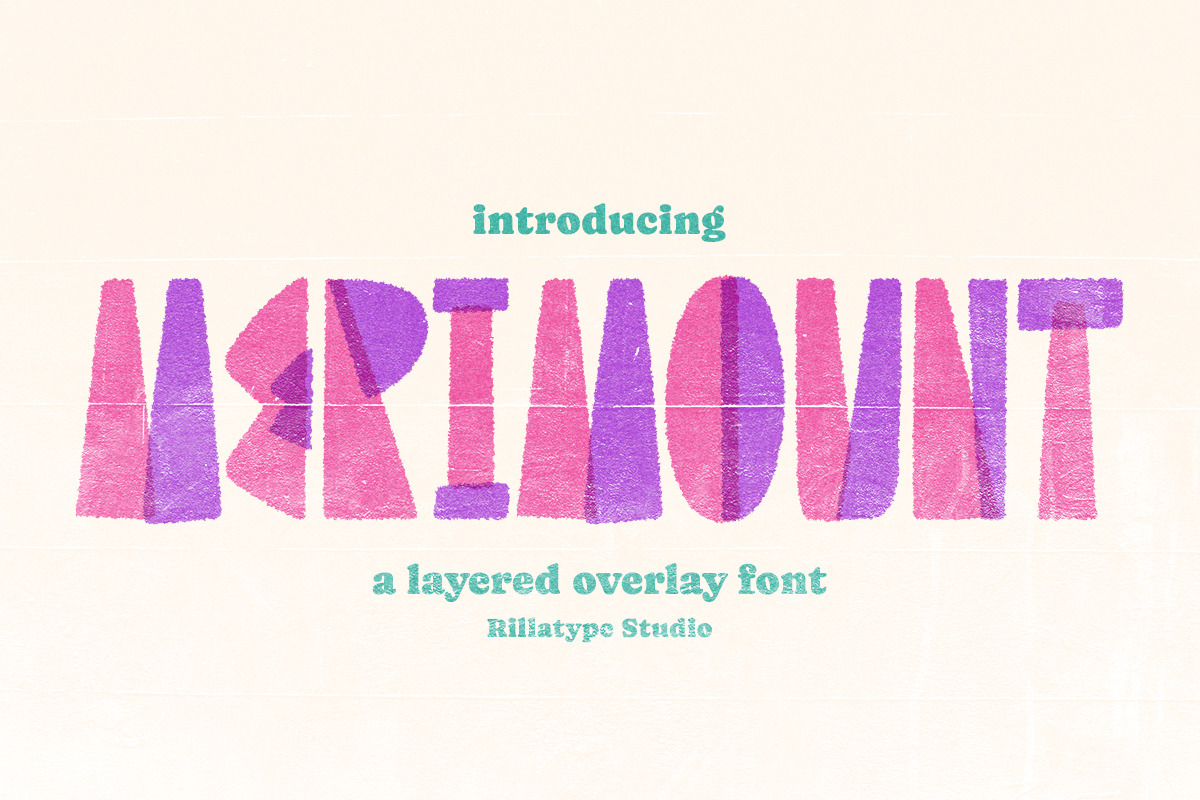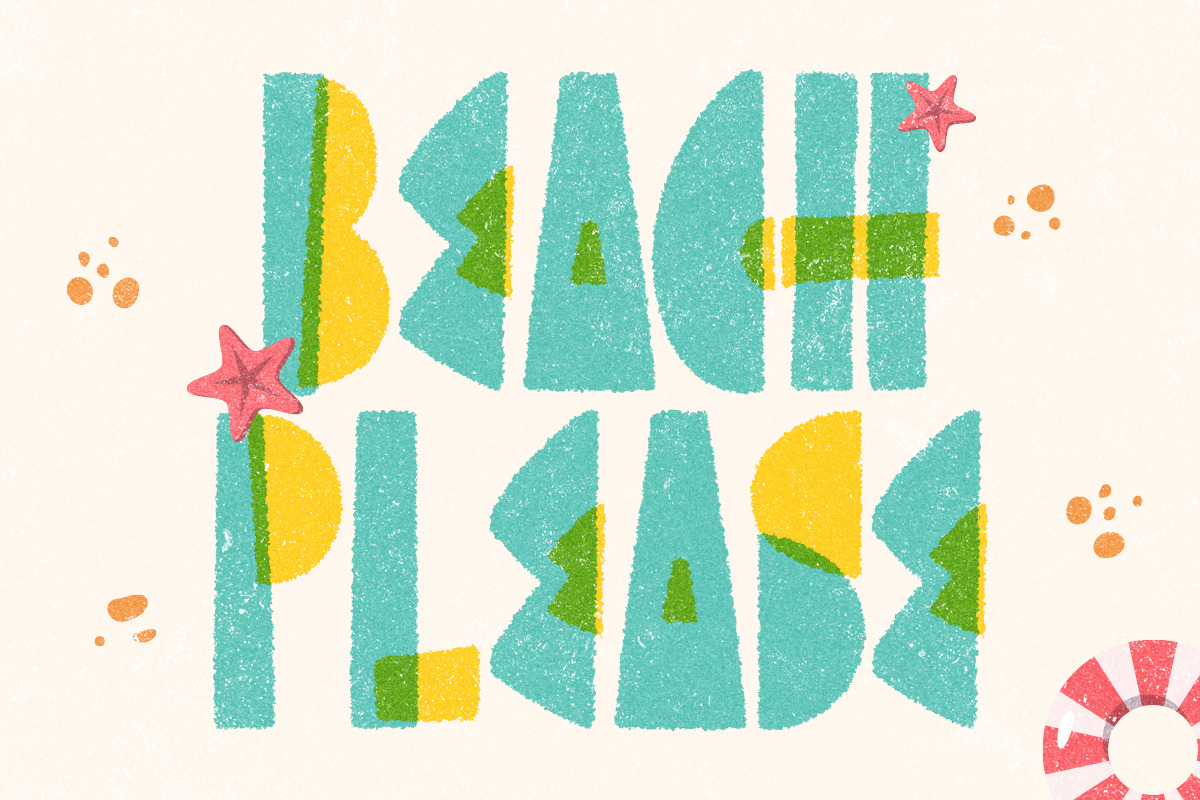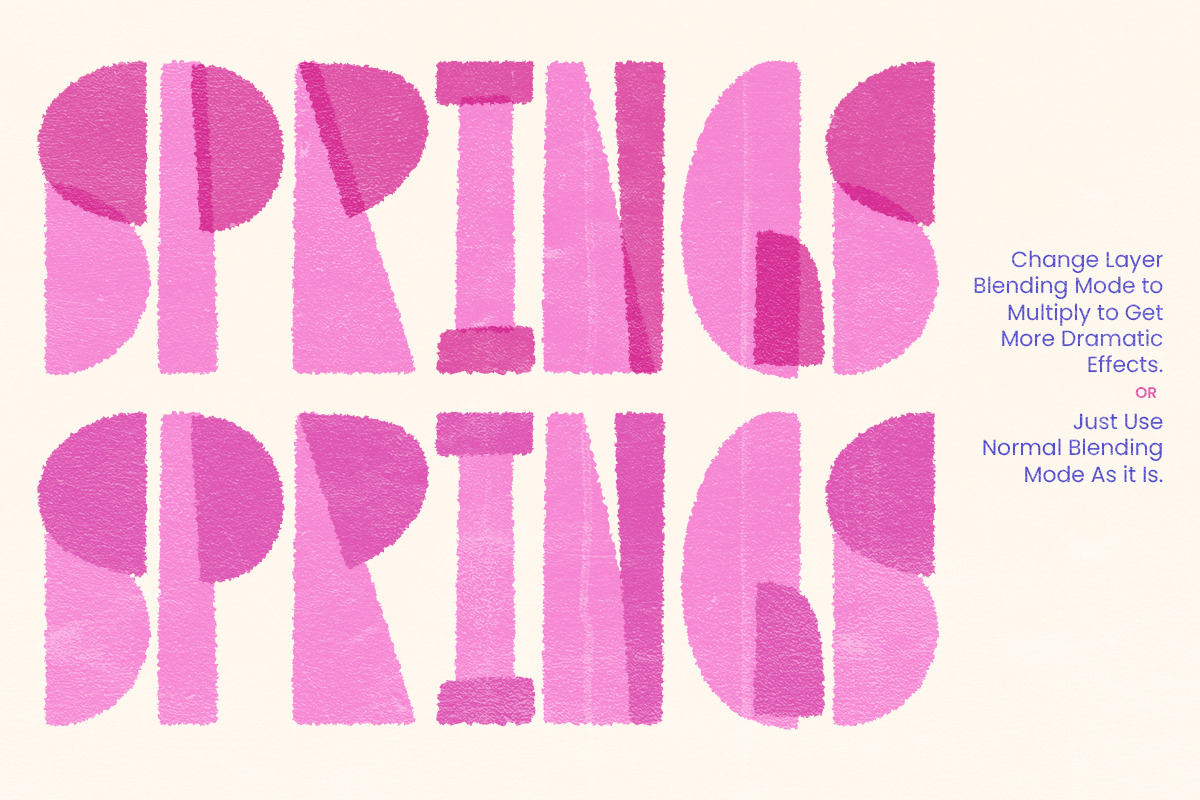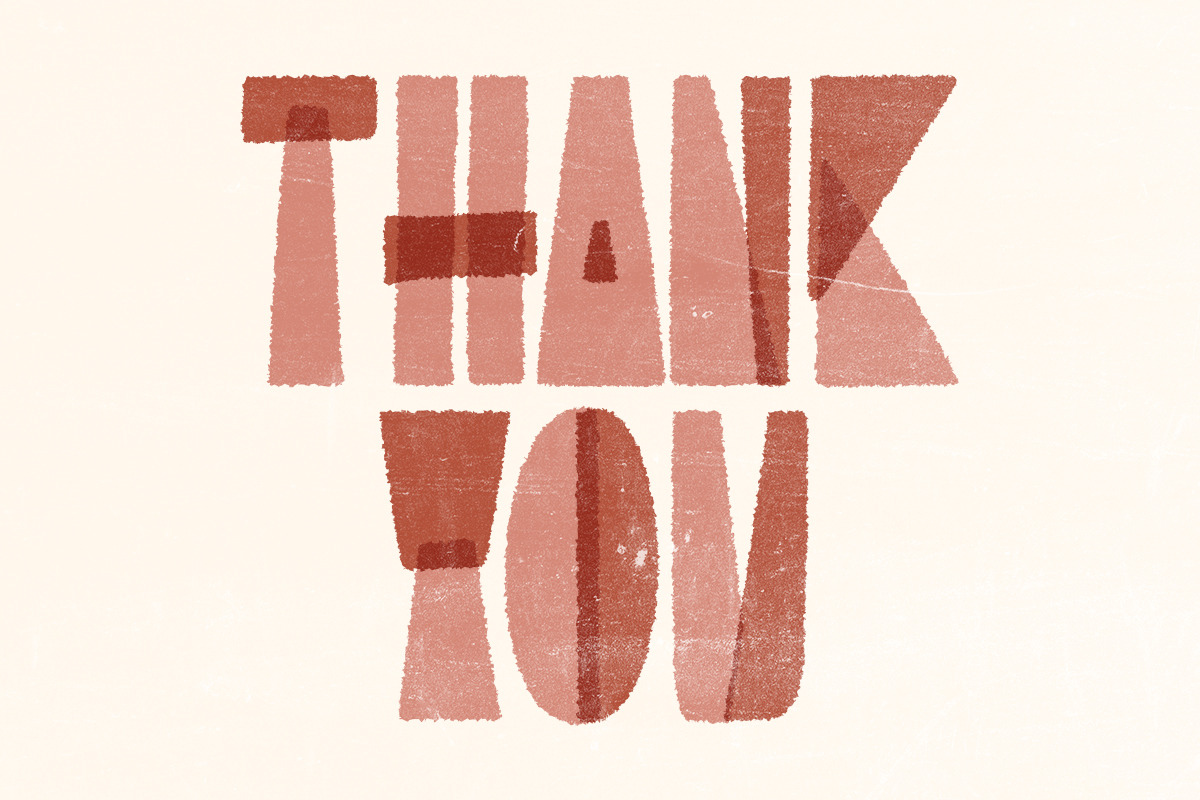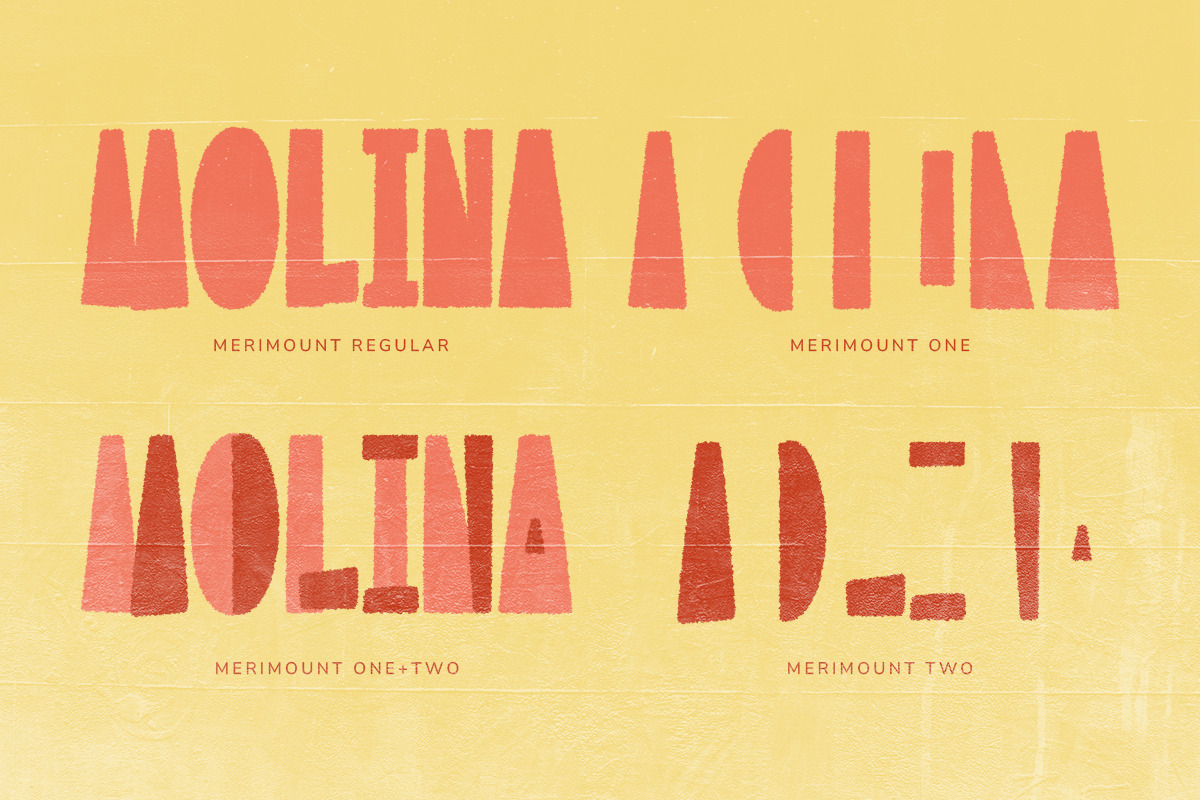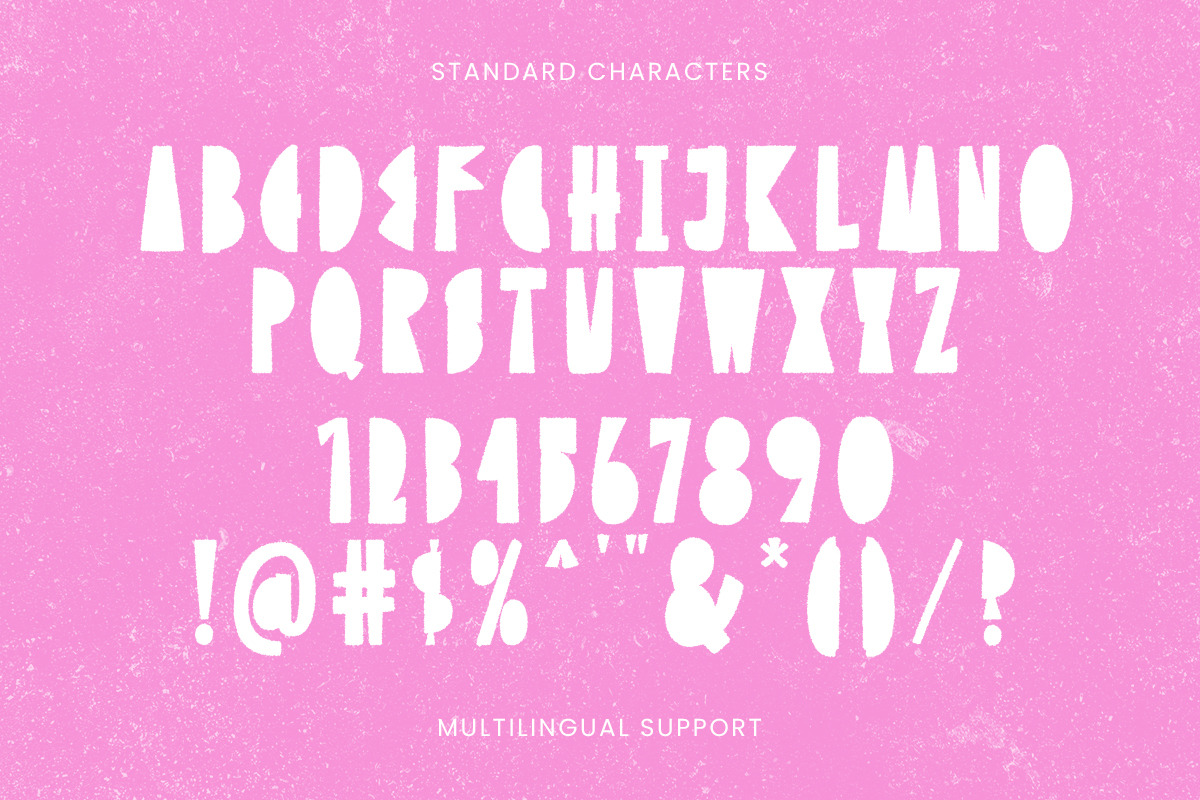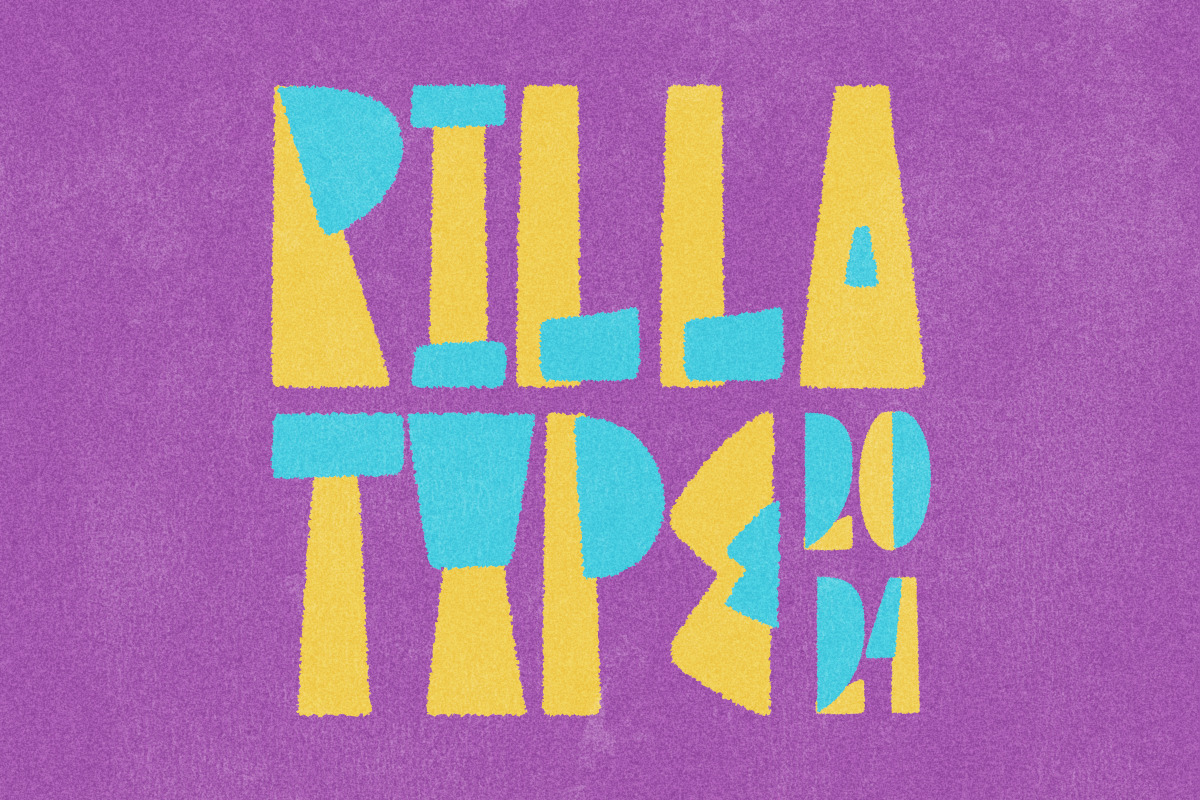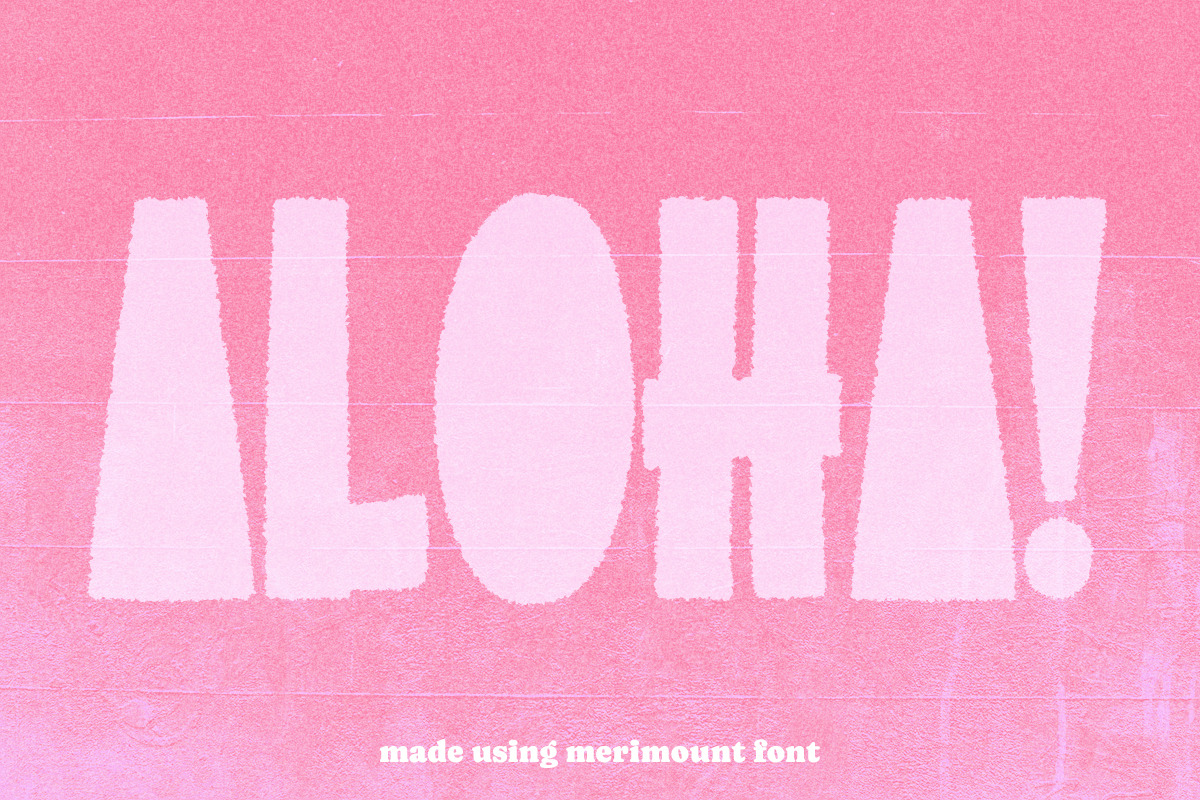
Merimount - Layered Overlay Font
Introducing Merimount - Your Ultimate Layered Overlay Font
Elevate your design game with Merimount, a versatile and innovative layered overlay font that allows you to create stunning typographic masterpieces effortlessly. With three unique styles—Merimount Regular, Merimount One, and Merimount Two—this font opens up a world of creative possibilities.
What sets Merimount apart is its layered design, enabling you to stack the fonts for a dynamic and dramatic effect. Experiment with different combinations and take advantage of the blending mode feature to achieve the perfect look for your project. Whether you're going for a bold and impactful design or a subtle and sophisticated feel, Merimount has you covered.
Ideal for a wide range of design projects, from posters to branding, Merimount adds a touch of creativity and flair. Unlock the full potential of your designs with this must-have layered overlay font.